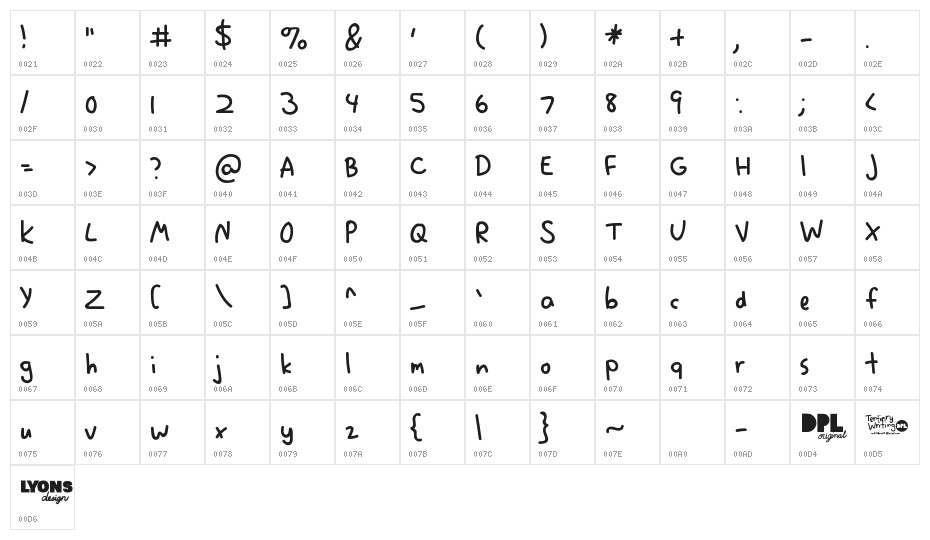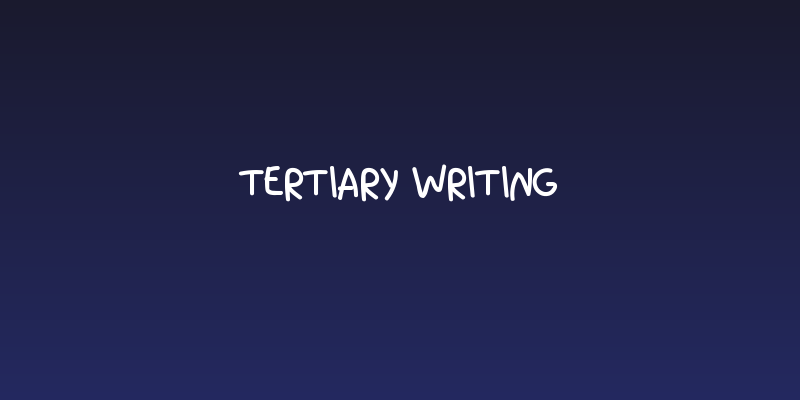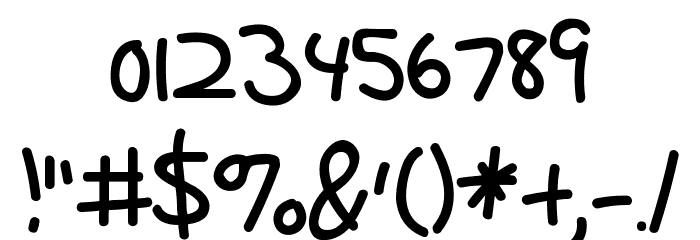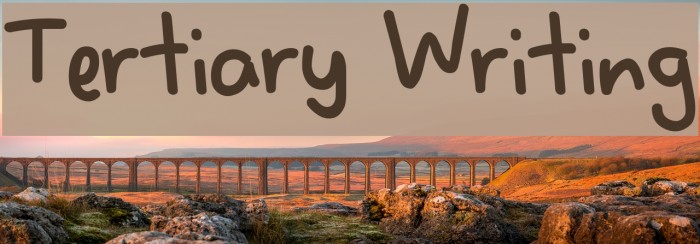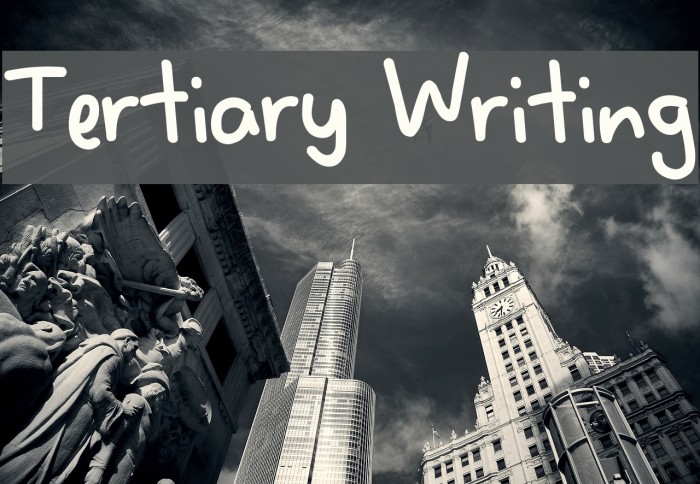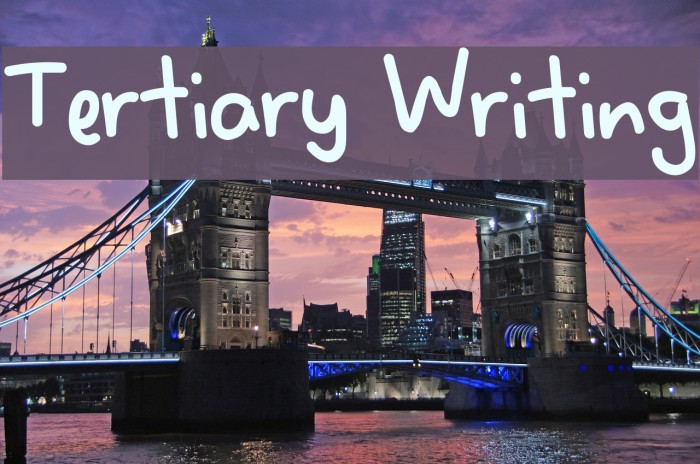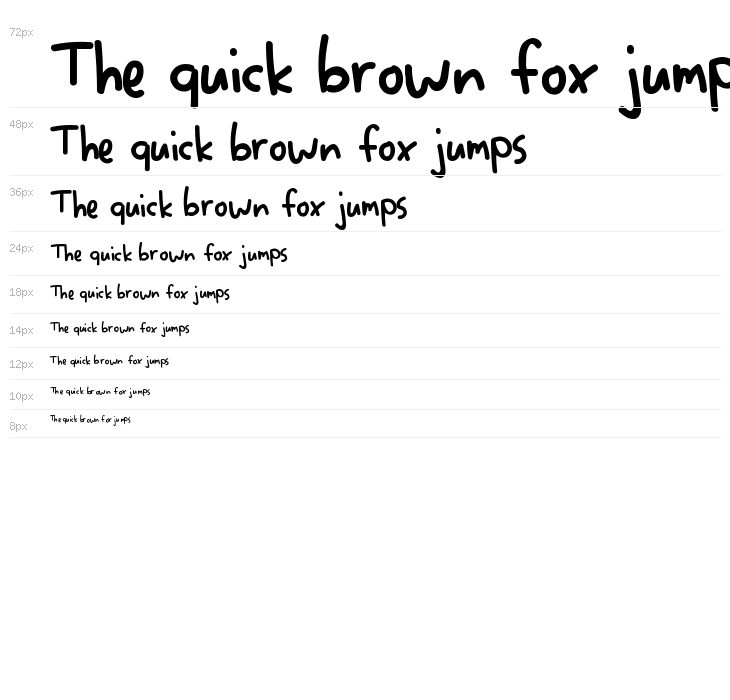
Tertiary Writing Font
Tertiary Writing Description
This playful and casual handwritten font features a smooth, rounded style that mimics natural handwriting. The letters are slightly irregular, adding a personal touch and warmth to the text. The strokes are consistent in thickness, providing a clean and approachable look. The font includes both uppercase and lowercase letters, numbers, and a variety of special characters, making it versatile for different uses. Its informal style makes it suitable for projects that require a friendly and relaxed tone.
| Overall Style | Casual |
| Use Case | Logos, Invitations, Social Media Graphics |
| Proposed Projects | Ideal for greeting cards, children's books, personal blogs, and informal branding. |